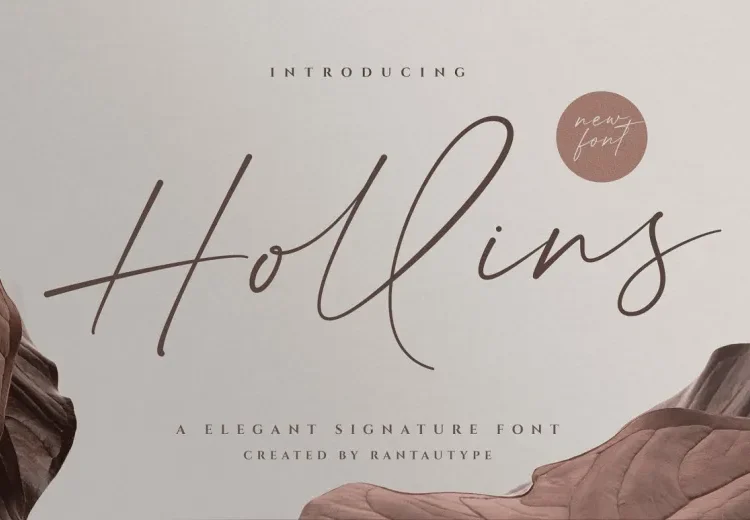
Hollins Font
Hollins is a sophisticated modern handwritten signature style font that adds a luxurious, contemporary touch to your design projects. Crafted to convey professionalism and elegance, Hollins excels in creating high-end, stylish, and memorable visual statements.
Features of Hollins:
• Elegant Handwritten Aesthetic: Hollins is designed to mimic the finesse of a handwritten signature, delivering an air of sophistication and refinement. Its graceful curves and refined strokes bring a personal and authentic touch to your work, making it ideal for high-profile branding and design needs.
• Versatile for Various Applications: This font shines in a multitude of settings, from watermarking photographs and creating wedding invitations to designing signature logos and crafting impactful quotes. Hollins is also perfect for album covers, magazine covers, business cards, and any project that demands a stylish and professional appearance.
• Professional and Readable: While maintaining an elegant look, Hollins ensures that your message remains clear and legible. Its clean lines and well-balanced forms make it a reliable choice for both digital and print mediums, providing a premium touch to all your creative endeavors.
• Premium Design Solutions: Whether you’re working on a signature logo design, crafting an elegant wedding invitation, or developing an eye-catching business card, Hollins delivers the perfect blend of style and readability. Its ability to convey luxury and professionalism makes it an invaluable asset for any designer aiming to make a significant impact.
With Hollins, you’re equipped with a font that not only adds a touch of elegance and luxury but also enhances the professionalism of your designs. Perfect for creating standout branding elements and high-quality design projects, Hollins is the ideal choice for those looking to make a lasting impression.